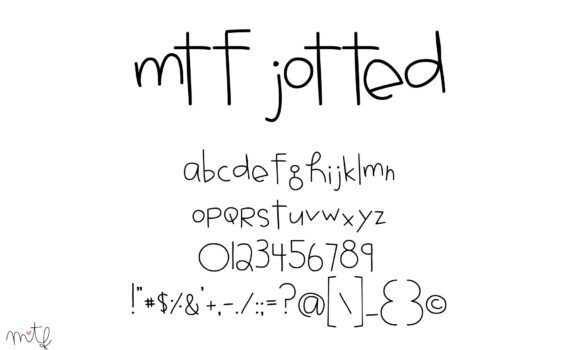
jotted
Jotted Font – Free Download Introduction to Jotted Font Jotted is a charming handwritten font that can be useful when you want to jot down a digital to-do list. 📌 Product Name Jotted Font 👤 Author Miss Tiina 📂 Category